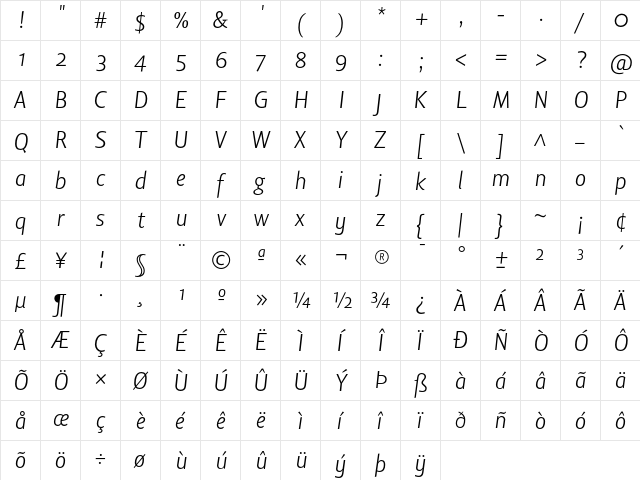
Lisboa Sans OSF Light Italic
Design Context for Lisboa Sans OSF Light Typeface
Lisboa Sans OSF Light is a composed and adaptable typeface that performs quietly and consistently across a wide range of design contexts. The dynamic lean of this cut emphasises speed and emphasis in any layout. Its slender proportions lend an understated elegance to any composition.
Pro Tip: Use Lisboa Sans OSF Light for emphasis, pull quotes, and subheadings where its slanted energy can add rhythm to the layout.